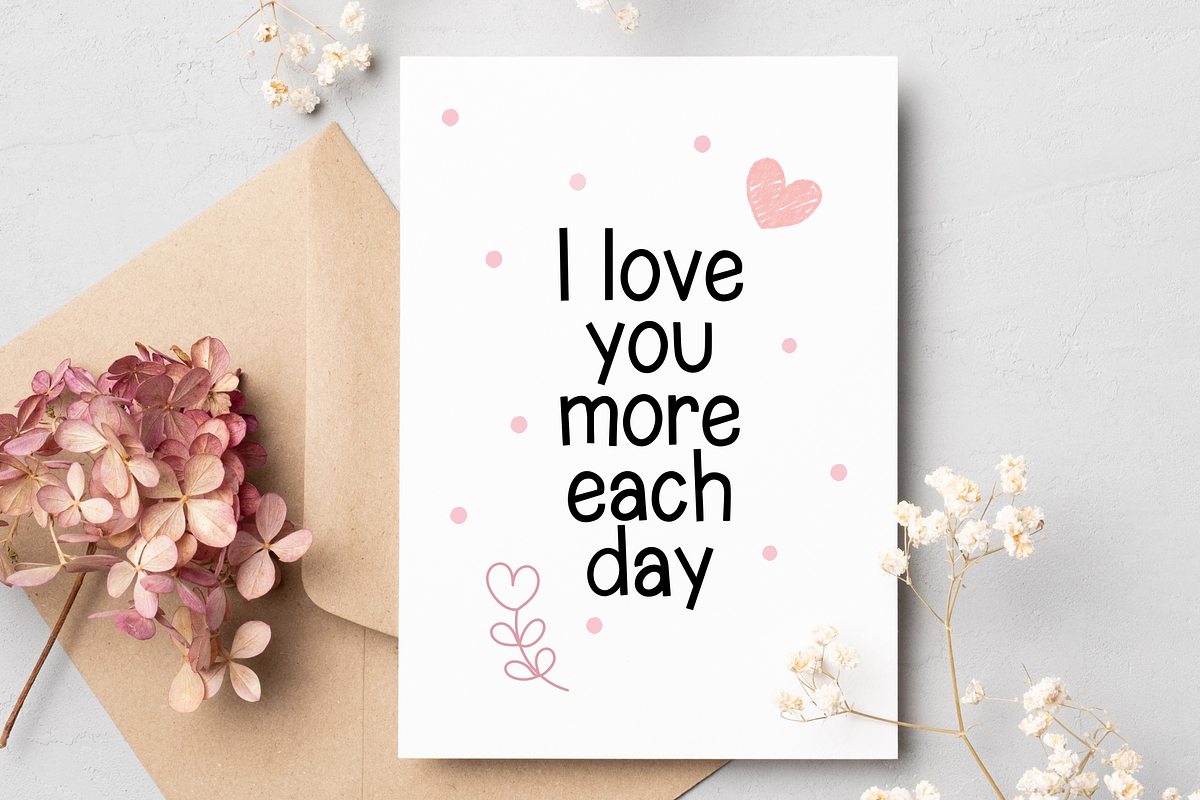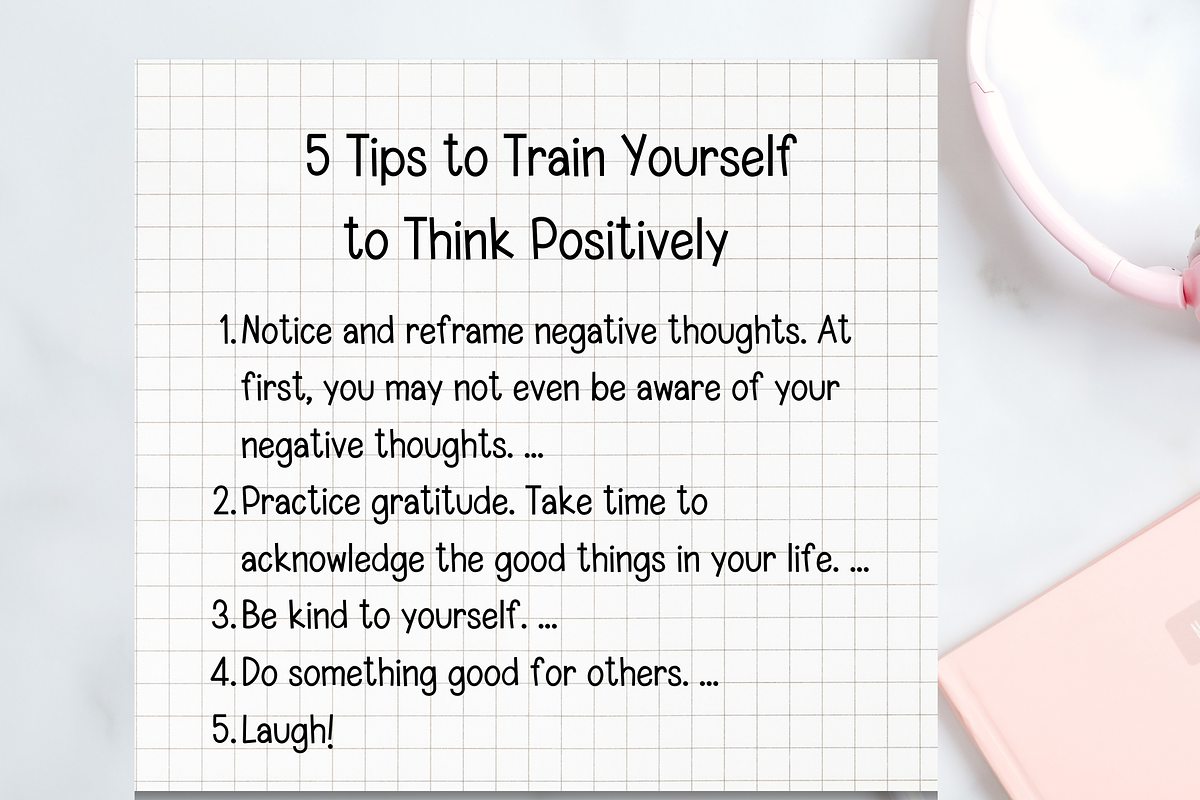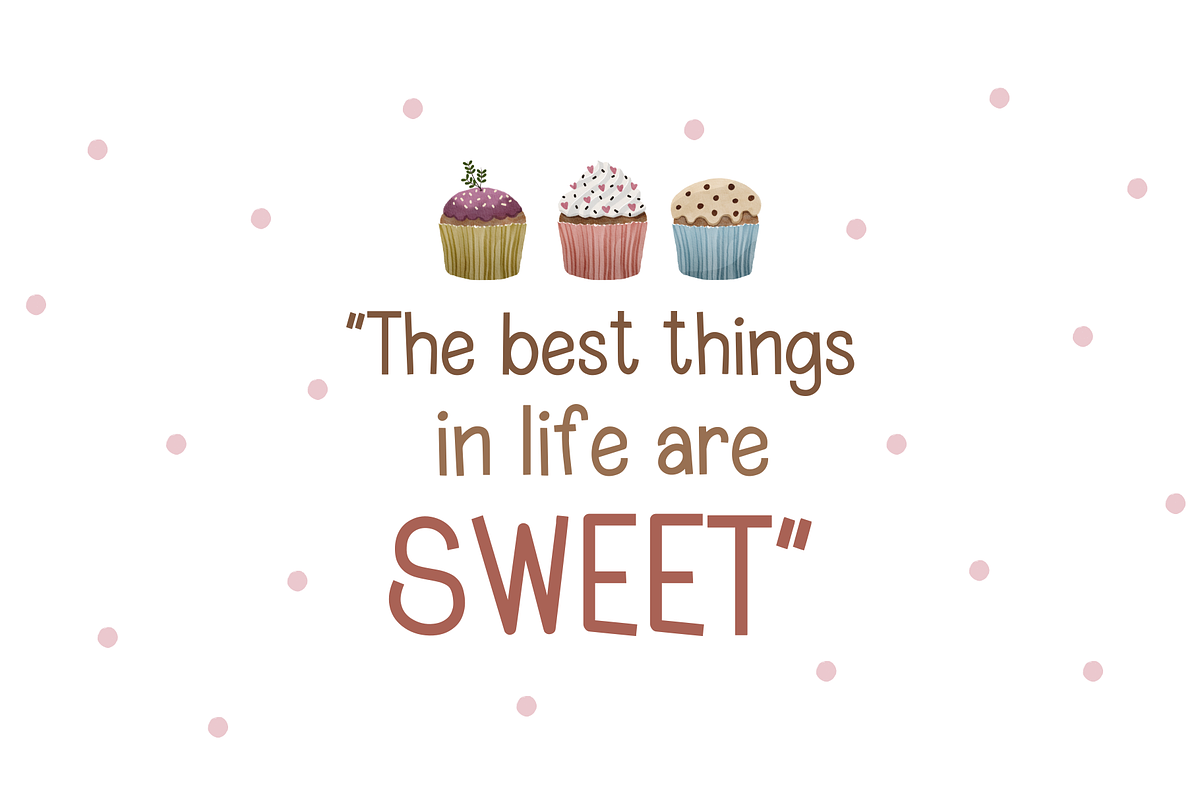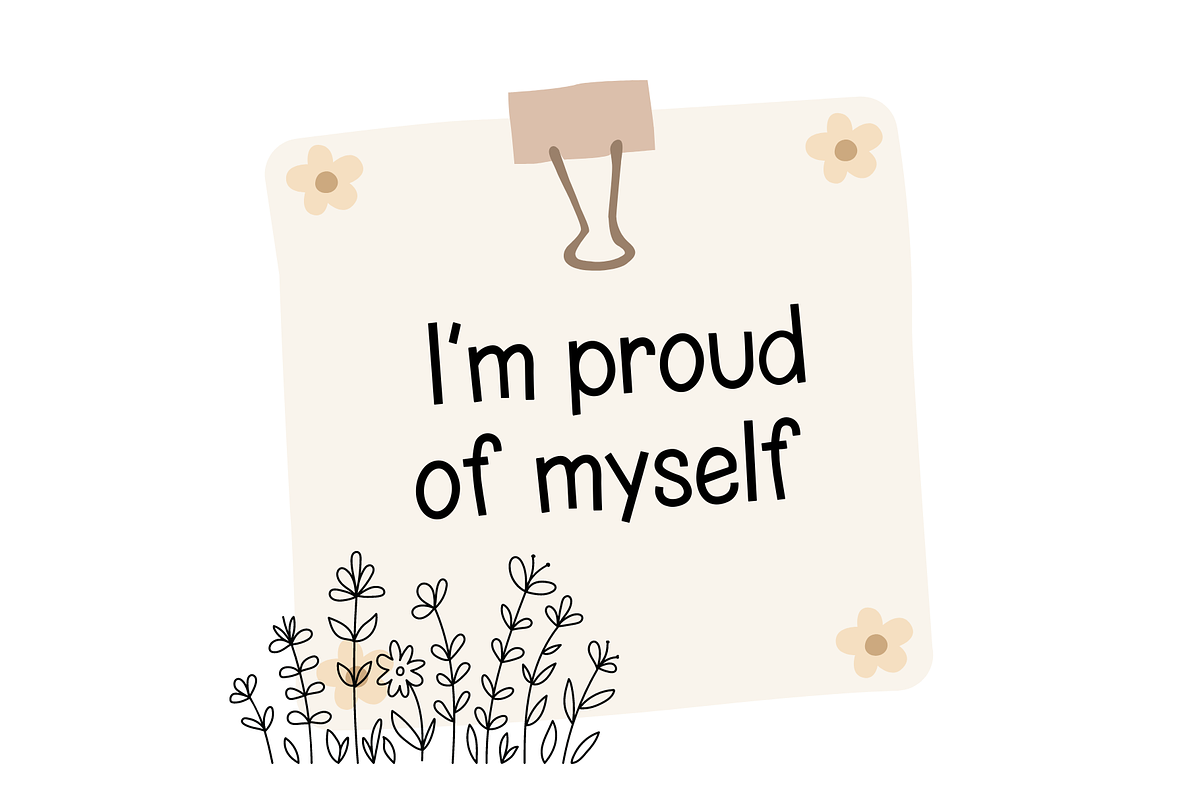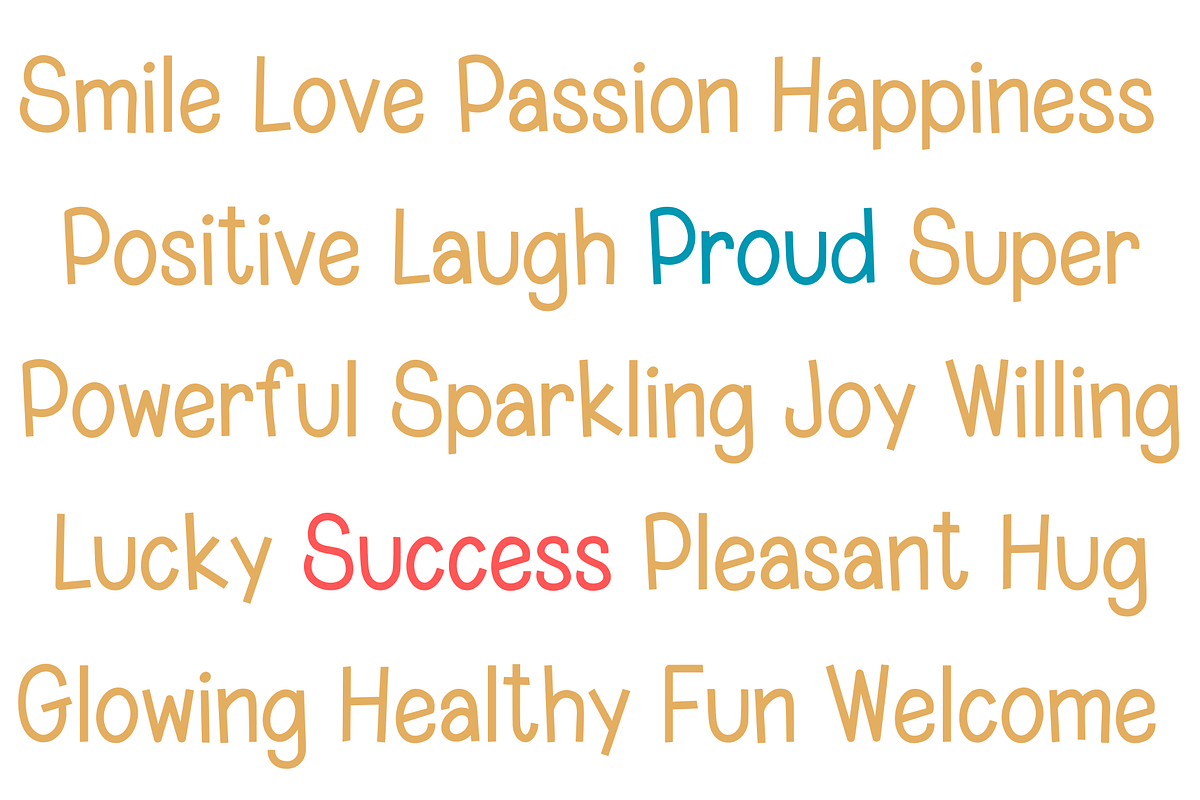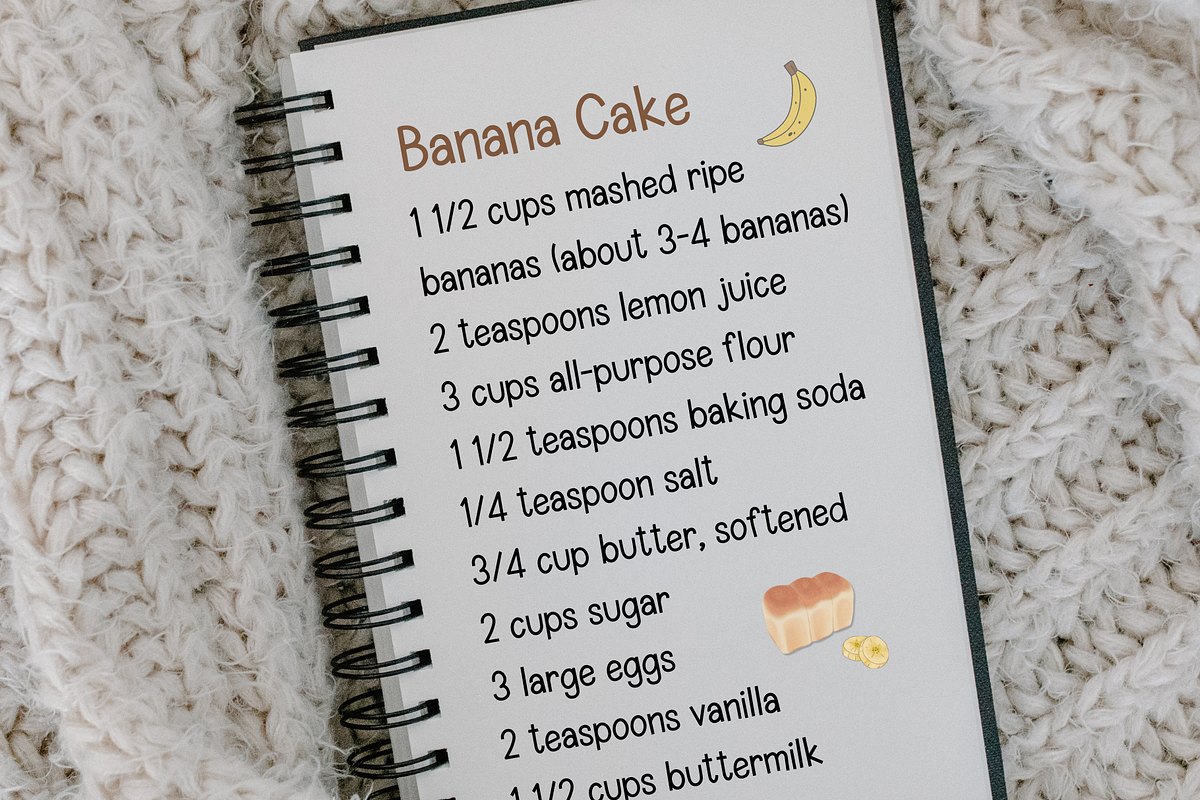
Cream Puff Cute Handwritten Font
Cream Puff is a handwritten font that is cute , playful , neat and clean. It is good for digital prints, quotes for facebook and Instagram, planner, Goodnotes, digital notes, study note, journal and any occasion presentation.
Cream Puff Cute Handwritten Font by Lalava Studio fits naturally into Branding, posters, packaging, typography.